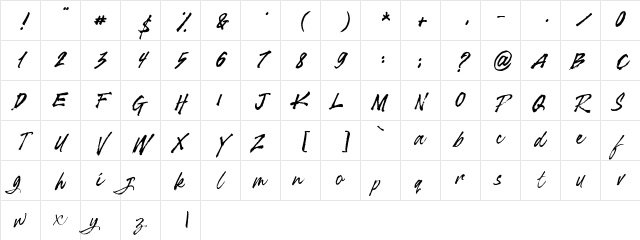
SHOCKWAVE FREE Regular Free Font
SHOCKWAVE FREE Regular
Foundry: inpiratype
Designer: inpiratype
Design Context for SHOCKWAVE FREE
SHOCKWAVE FREE is a composed and adaptable typeface that performs quietly and consistently across a wide range of design contexts.